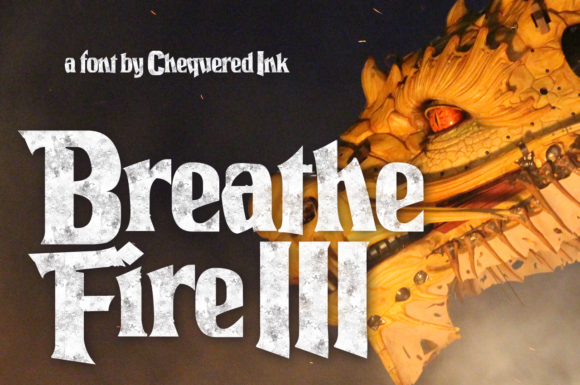
The Magical World of Breathe Fire III Font
An Honest Review of Breathe Fire III
- ✨ Modern yet whimsical style: Breathe Fire III has a unique blend of modern and playful elements that make it perfect for creative projects.
- ✅ Excellent for display text: This font is designed to make a statement, and it’s perfect for headings, titles, and other display text.
- 💫 Magical and mystical vibe: Breathe Fire III has an otherworldly charm that will add a touch of magic to your designs.
- ⚠️ Limited use for body text: Due to its decorative nature, Breathe Fire III might not be the best choice for large blocks of body text.
- ⚠️ Some characters may require manual kerning: As with any font, you might need to adjust the kerning for certain character combinations to achieve optimal results.
The Backstory of Breathe Fire III
The story behind Breathe Fire III is shrouded in mystery, but it’s said that the font was inspired by ancient myths and legends. 🧚♀️ The designer, a creative genius with a passion for fantasy and magic, wanted to create a font that would transport users to a world of wonder and enchantment.
Q: Is Breathe Fire III a script font?
A: While Breathe Fire III has some script-like elements, it’s more accurately described as a display font with a mix of modern and whimsical features.